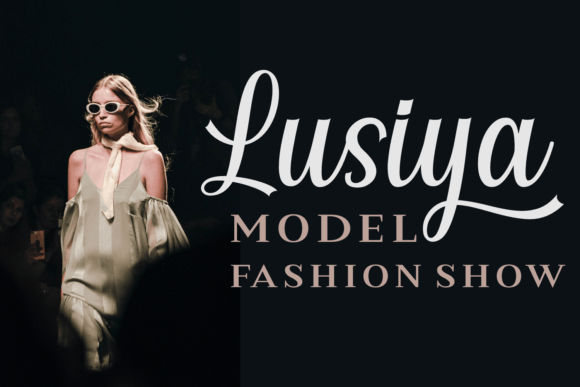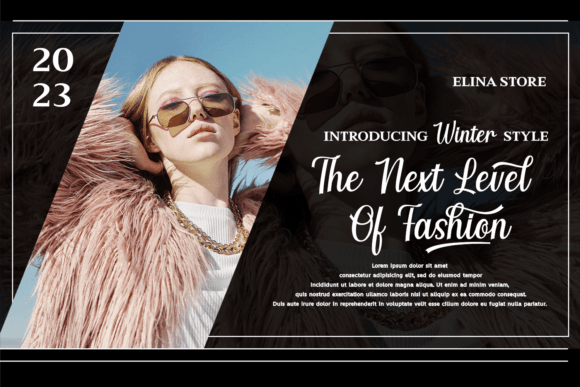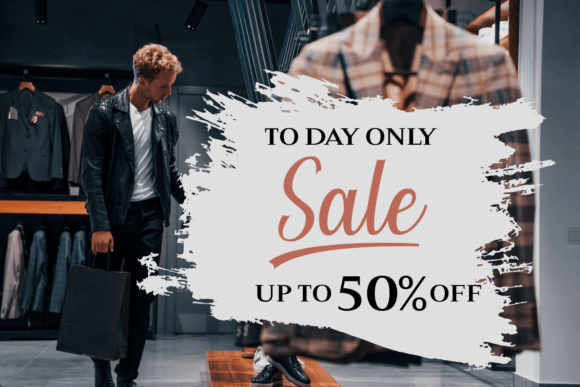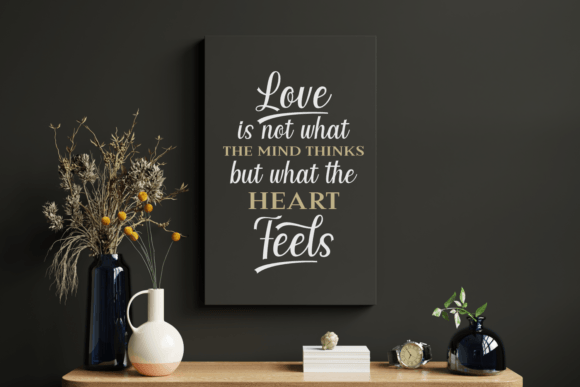
Introduction to Melysa Font
As a designer, have you ever felt the excitement of discovering a new font that elevates your entire design? That’s exactly what happened to me when I stumbled upon the stunning Melysa Font. I was working on a creative project and wanted to create a beautiful, elegant typography that would set it apart. I searched high and low for the perfect font, and Melysa Font was the answer to my prayers.
This gorgeous and elegant script font is characterized by its graceful letters and beautiful rhythm, making it the perfect choice for any design project. Whether you’re working on a free download or a high-quality design resource, Melysa Font is sure to add a touch of sophistication and style. With its PUA encoded features, you can easily access all the glyphs and swashes, giving you complete creative control.
As a valuable design resource, Melysa Font offers endless possibilities for creative expression. Imagine using it to create stunning typography on a transparent background or adding a touch of elegance to your next design project. The possibilities are endless, and I’m excited to share this beautiful font with you.
Key Features of Melysa Font
- High-quality, professional font perfect for creative projects requiring a unique touch.
- Available in 5 different font weights, providing flexibility for various design applications.
- Designed with a high-resolution (300 DPI) and high-quality vector graphics, ensuring crisp and clear display on various screens and print materials.
Honest Review: Melysa Font
I recently stumbled upon the Melysa Font and was excited to dive in and see what it had to offer. As a designer, I’m always on the lookout for high-quality design resources to elevate my creative projects.
One of the things that stands out about the Melysa Font is its beautiful, elegant design. The font is perfect for projects that require a touch of sophistication and style. I was also impressed by the transparent background option, which makes it easy to use in a variety of design scenarios.
What works well: ✨ High-quality design, elegant feel, transparent background option, free download.
- Perfect for creative projects that require a touch of sophistication and style.
- Easy to use with transparent background option.
Limitations: ⚠️ Limited font sizes and weights available, may not be suitable for all design projects.
Overall, I’m impressed with the Melysa Font. It’s a great addition to any designer’s toolkit, and I would definitely recommend it for creative projects that require a high-quality, elegant font. With its free download and transparent background option, it’s a great value for designers looking for a reliable design resource.
Melysa Font
Melysa Font is a versatile and high-quality design resource ideal for various creative projects. This font offers a transparent background, making it easy to integrate into any design.
Getting the Most Out of Melysa Font
For optimal results, experiment with different font sizes, colors, and combinations to achieve a unique design look. This font is ideal for creating eye-catching headings, titles, and body text.
Melysa Font is suitable for a variety of creative projects, including:
Business cards and letterheads
Brochures and flyers
Web design and development
Graphic design and visual identity
Fontin is a high-quality sans-serif font ideal for creative projects requiring a modern and clean design. It features a transparent background, making it perfect for use on images or videos with text overlays.
Fontin can be used for a wide range of design applications, from digital marketing materials to print-based advertising campaigns. Its clean lines and minimalist aesthetic make it an excellent choice for designers seeking a simple yet effective font.